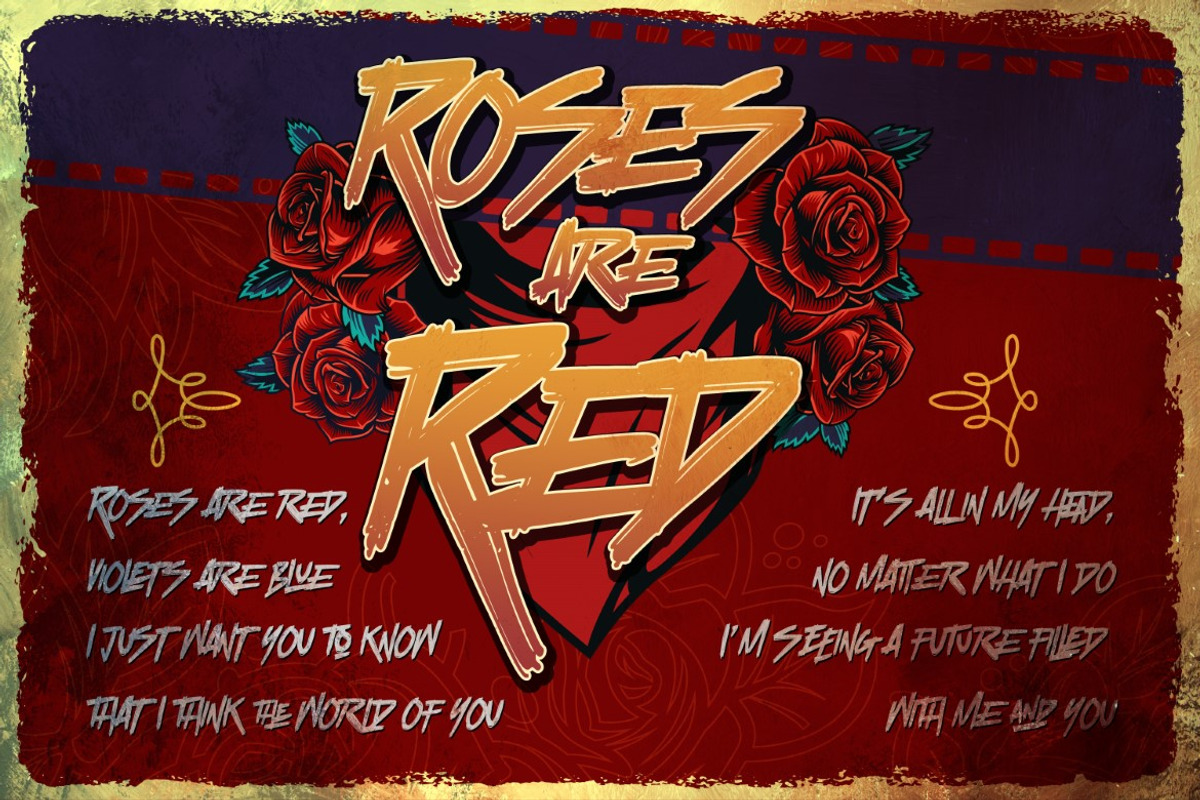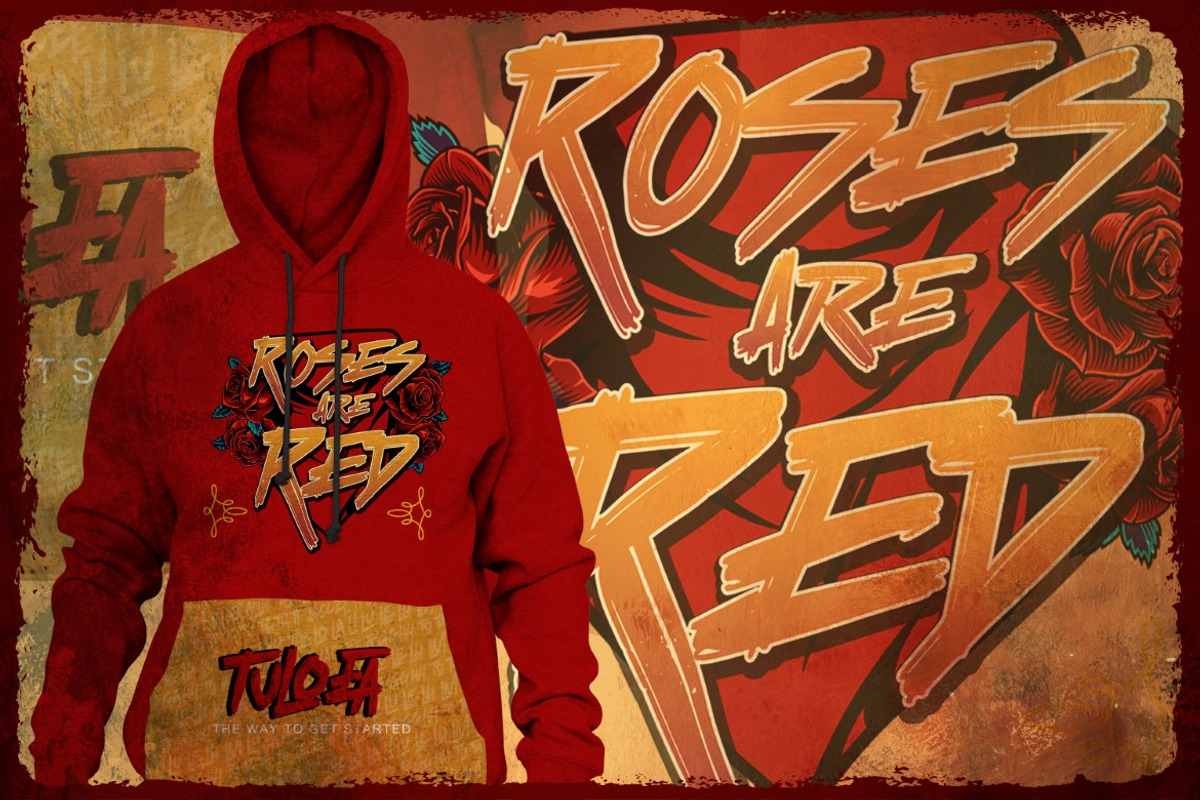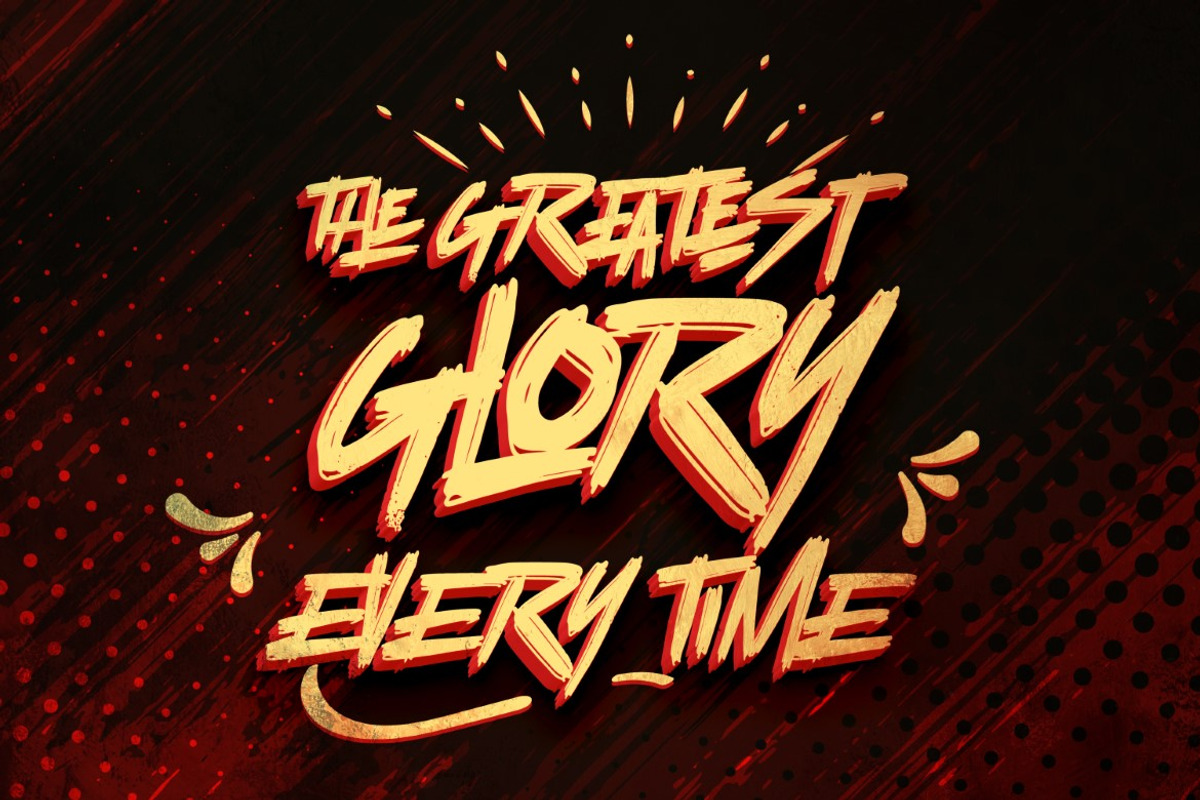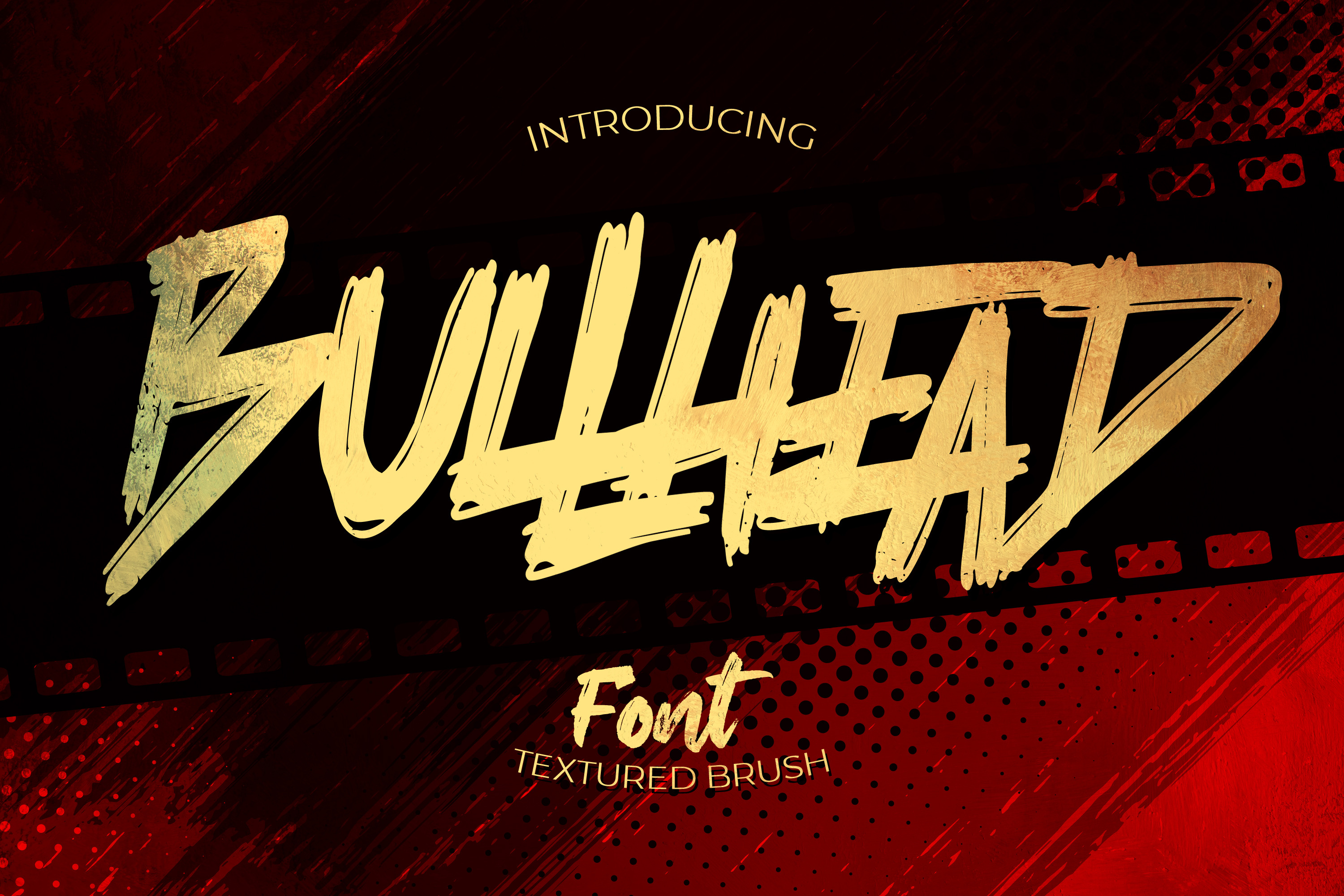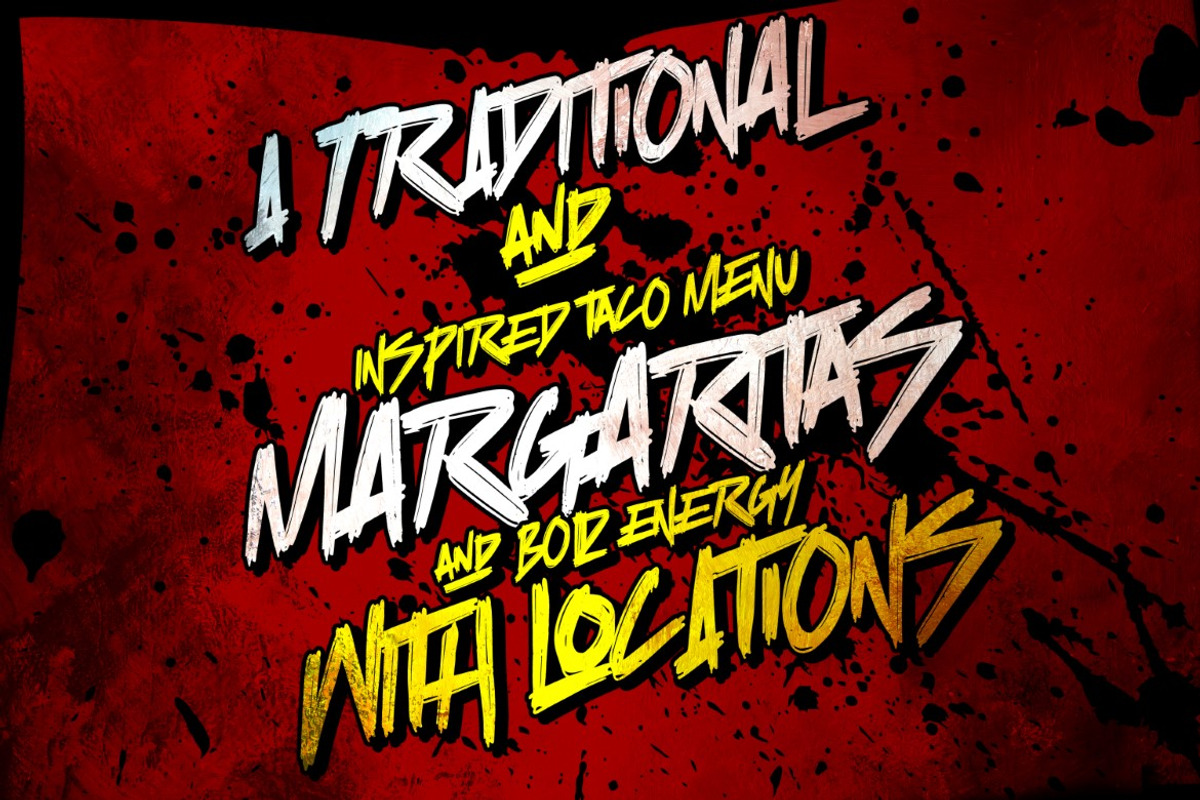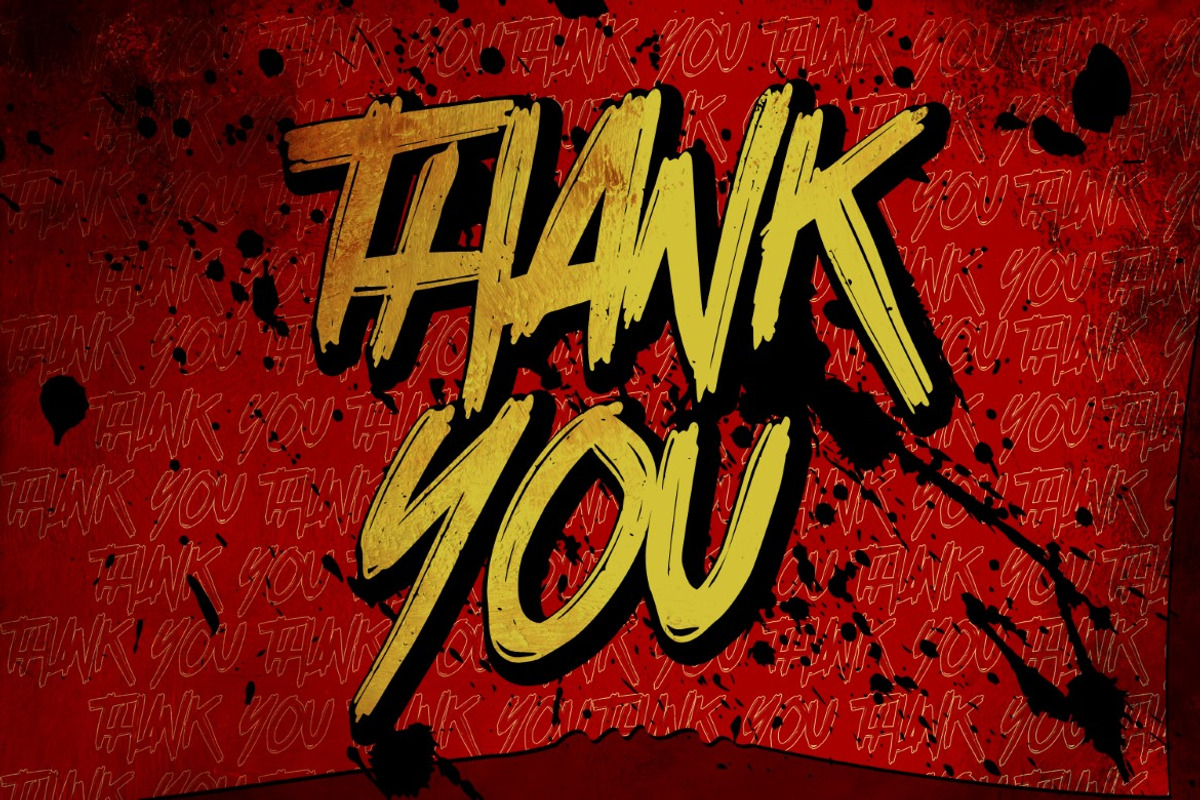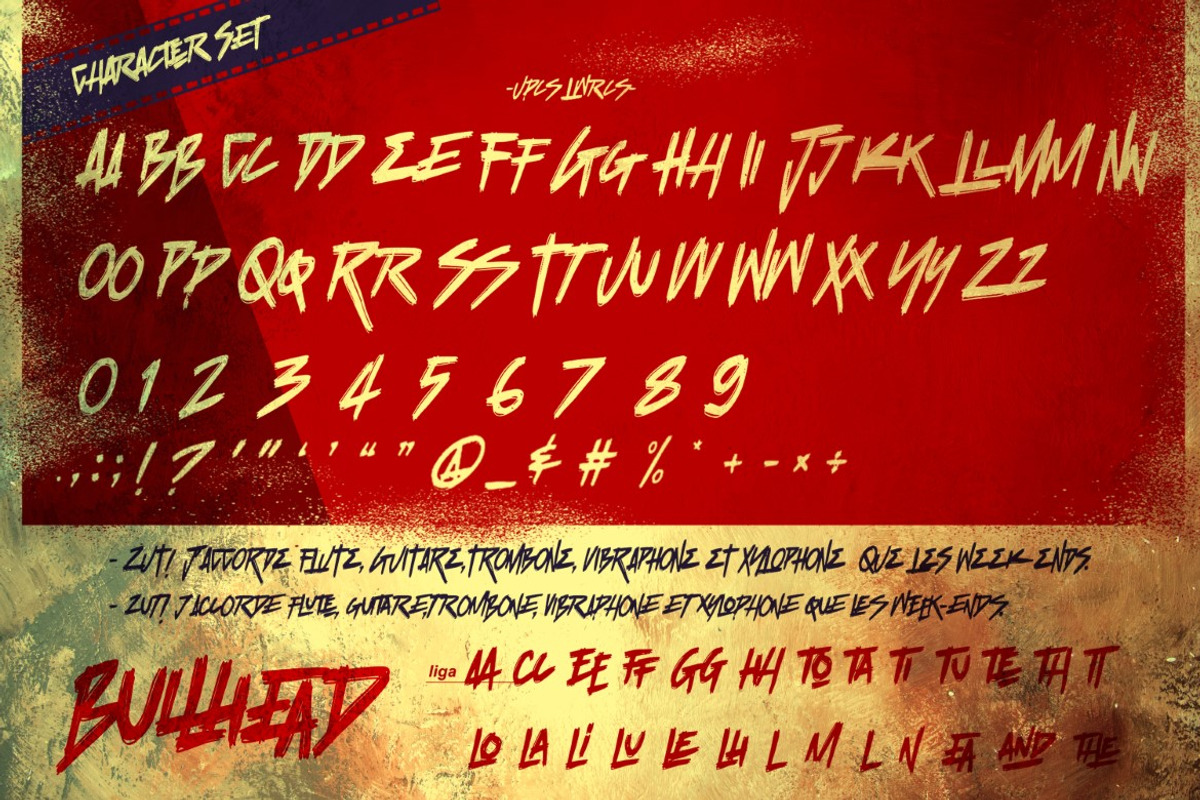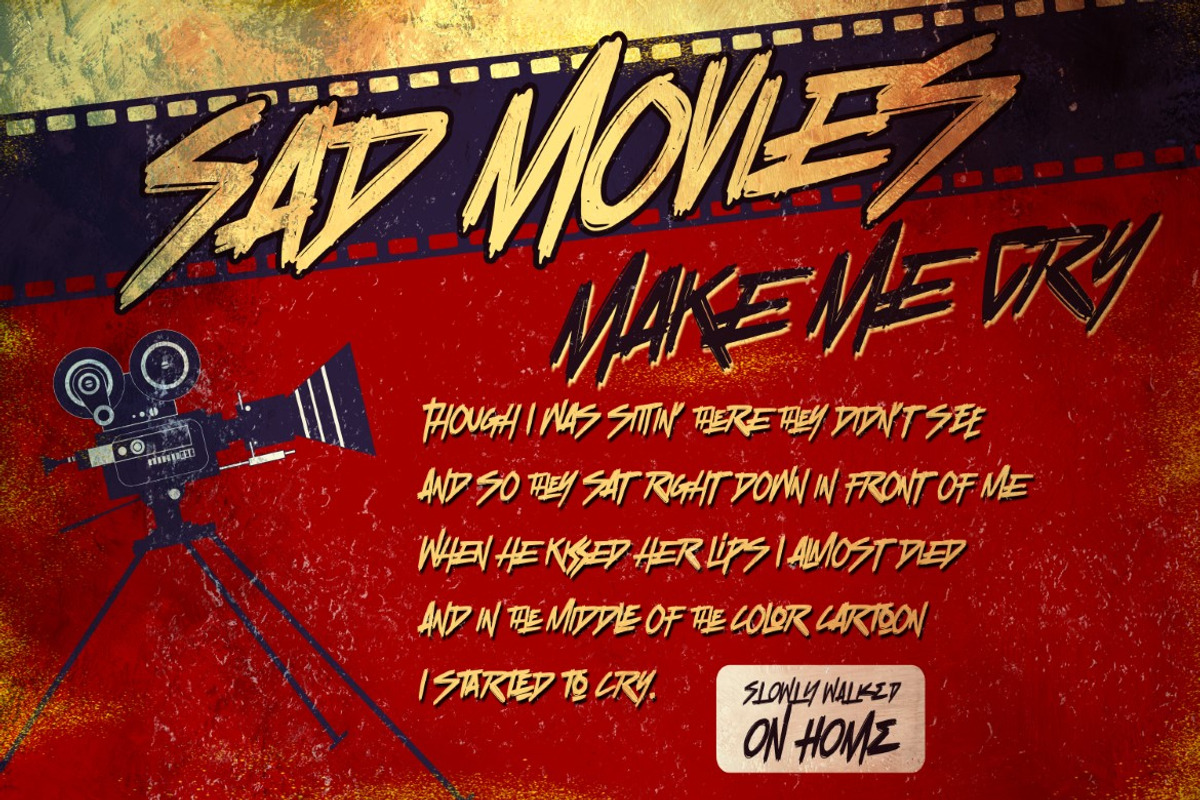
Bullhead - Bold Brush Font
Here comes a New font, Bullhead is a handwritten brush that is written casually and quickly. these strong Letters are made with brushes on Procreate. Then crafted carefully drawn into a vector format. That is why Bullhead has a charming, authentic, and relaxed characteristic more natural look to your text with a more natural look to your text. You can activate Ligature OpenType panel to make these two styles. It also has many alternatives and underlines that make your text and design more interesting. Bullhead is perfect for homeware designs, branding projects, Logo design, Quotes product packaging